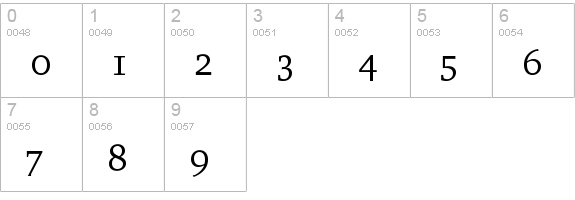
Charter Small Cap Font Details
Charter Small Cap is a sophisticated and elegant font that adds a touch of class to any design project. With its refined and timeless appearance, this typeface is perfect for conveying a sense of professionalism and sophistication. The small caps variant of the Charter font family offers a unique and stylish look, making it ideal for headings, subheadings, and other important text elements. What sets Charter Small Cap apart is its versatility and readability, making it suitable for a wide range of design applications. Whether used in print or digital media, this font exudes a sense of classic charm that is sure to captivate the audience. Best of all, Charter Small Cap is available for free download at FontsMarket.com. This means you can access this high-quality font without any cost, making it a valuable addition to your font library. Don't miss out on the opportunity to enhance your designs with the timeless elegance of Charter Small Cap font.